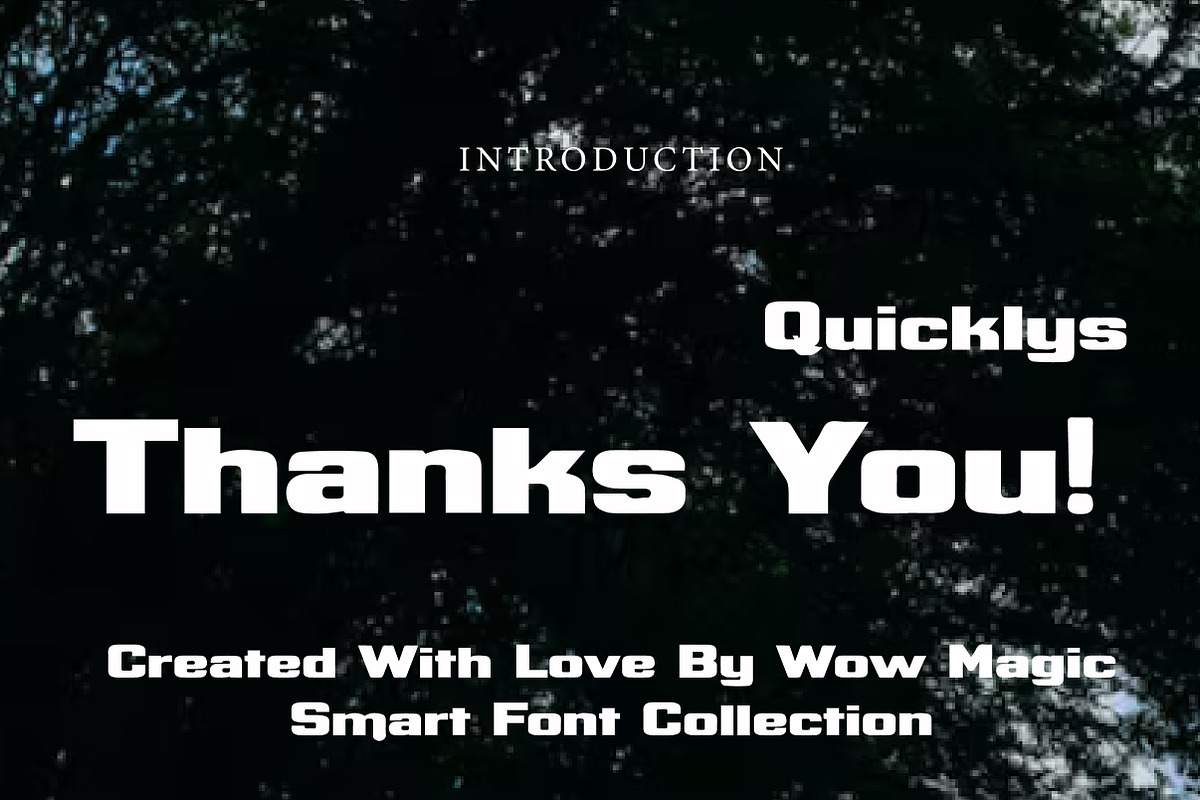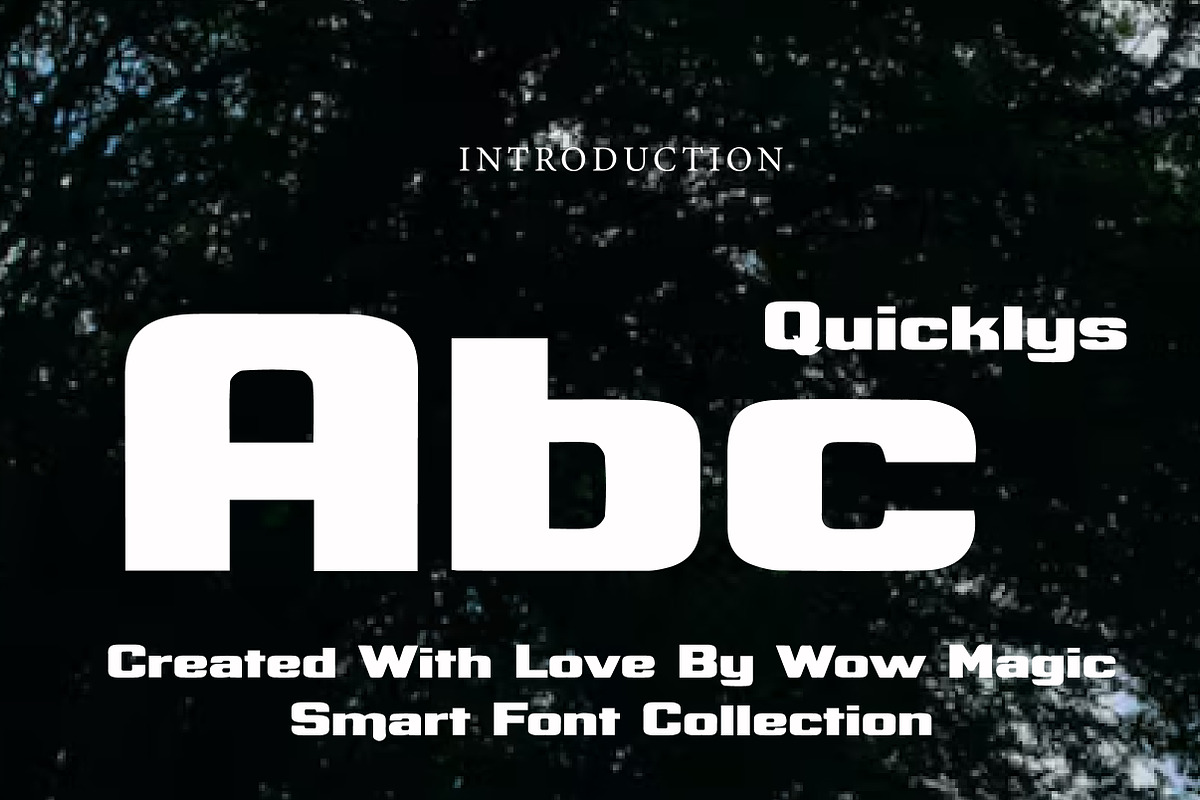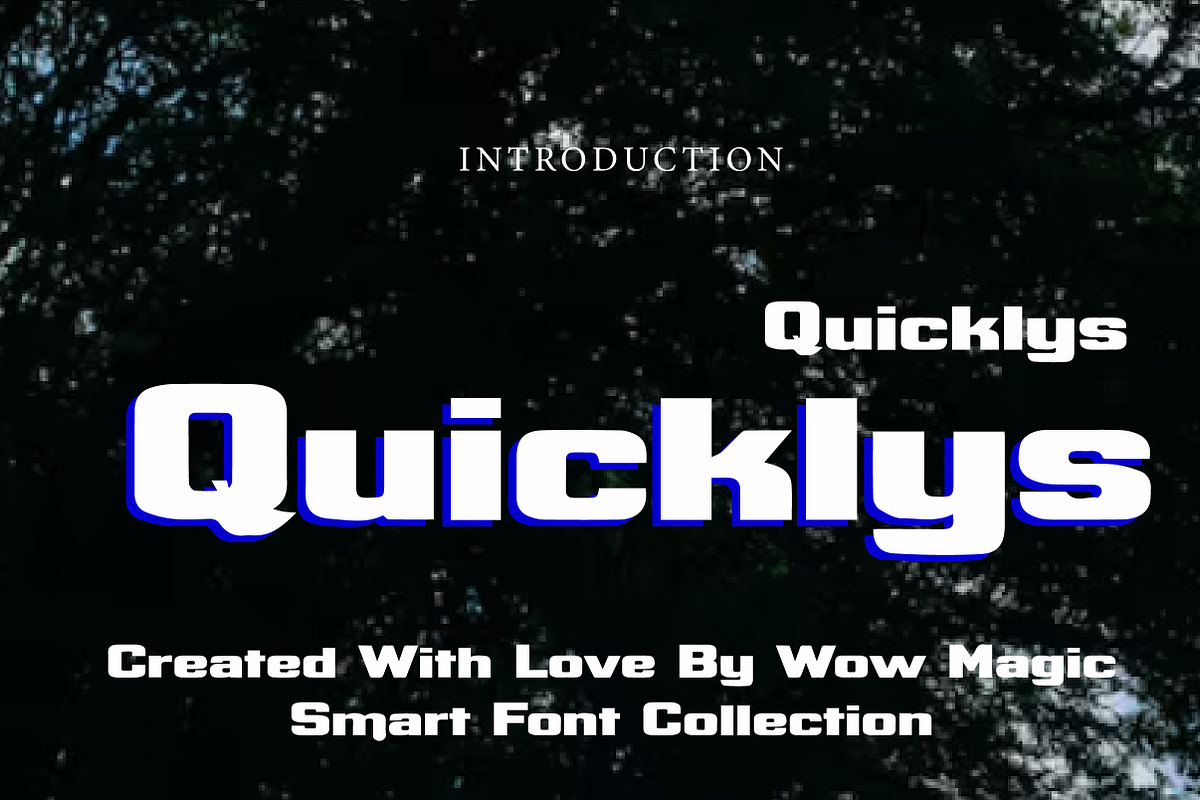
Quicklys
Quicklys is a bold modern display font built with strong geometric shapes and smooth rounded edges. Its thick strokes and compact structure create a powerful visual presence that feels both contemporary and playful. The clean construction gives it a professional and modern appearance while the soft curves add a friendly and approachable character.
This typeface is designed to stand out in bold headlines, branding, and creative visual projects. Quicklys works perfectly for logos, posters, product packaging, social media graphics, book covers, and modern advertising. Its balanced proportions ensure strong readability while maintaining a stylish and impactful design.
Quicklys is ideal for designers who want a font that feels bold, confident, and modern while still keeping a smooth and friendly aesthetic. It brings strong personality and visual energy to both digital and print design.
Branding Projects
Posters & Flyers
App & UI Titles
Bold Headlines